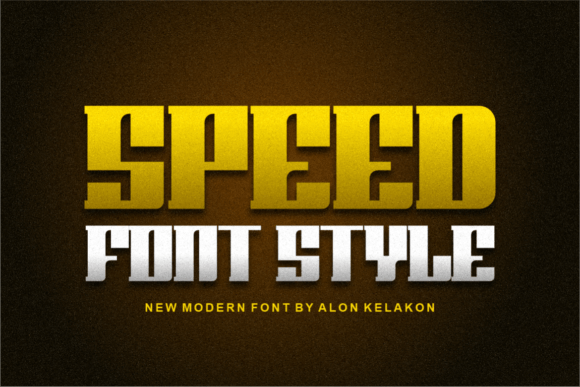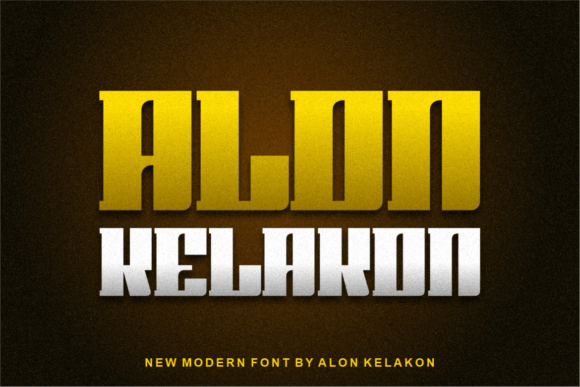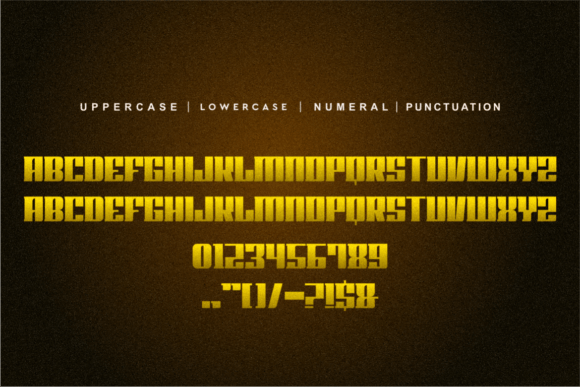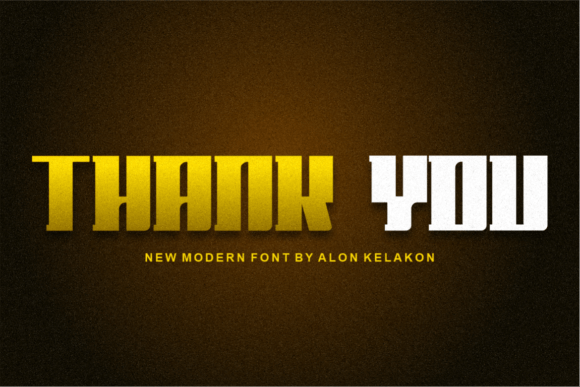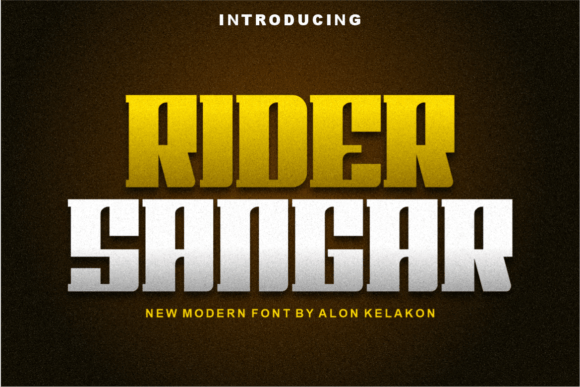
Rider Sangar
Rider Sangar: A Unique Slab Serif Font
Rider Sangar is a unique slab serif font that’s ready to use for many different design projects. From labeling and clothing to movie scenes, posters, titles, gigs, album covers, logos, and much more, this versatile typeface fits many creative needs.
Key Features of Rider Sangar
• Bold Design: Features strong, angular lines[6].
• Geometric Style: Offers blocky, distinctive appearance[6].
• Uniform Width: Creates consistent visual impact[6].
• Versatile Application: Adapts well to numerous design contexts.
Best Uses for Rider Sangar
Thanks to its unique characteristics, Rider Sangar works especially well for:
When using Rider Sangar in your designs, keep these tips in mind:
• Try it for headlines or short text to show off its bold style.
• Test different sizes to find the perfect fit for your project.
• Mix with simpler fonts for body text to create contrast.
• Let its geometric character enhance creative applications.
To sum up, Rider Sangar is an excellent choice for designers seeking a unique slab serif font that can work across many different projects. Its versatile nature makes it perfect for various creative needs. Whether you’re designing clothing, creating movie titles, or crafting logos, Rider Sangar offers the perfect mix of uniqueness and flexibility.
Furthermore, Rider Sangar’s distinctive design allows it to shine in many different settings. For instance, from product labels to gig posters, this font can lift your projects with its special style. Also, its bold geometric appearance works well in designs that aim to grab attention while maintaining visual consistency.
In conclusion, Rider Sangar truly stands out in the world of slab serif typography. Its ability to work well across so many different uses shows how flexible it can be. Therefore, for those wanting to add a unique touch to their work, Rider Sangar can enhance any design with its distinctive style. Ultimately, it’s perfect for designers aiming to make a strong, memorable impact across many different kinds of creative projects.